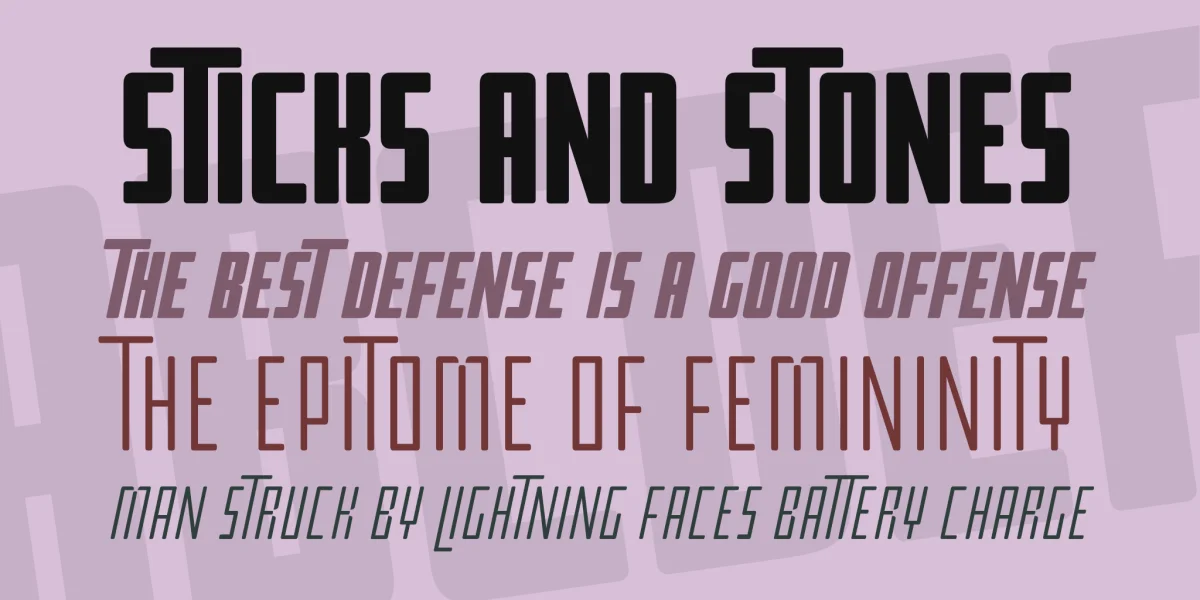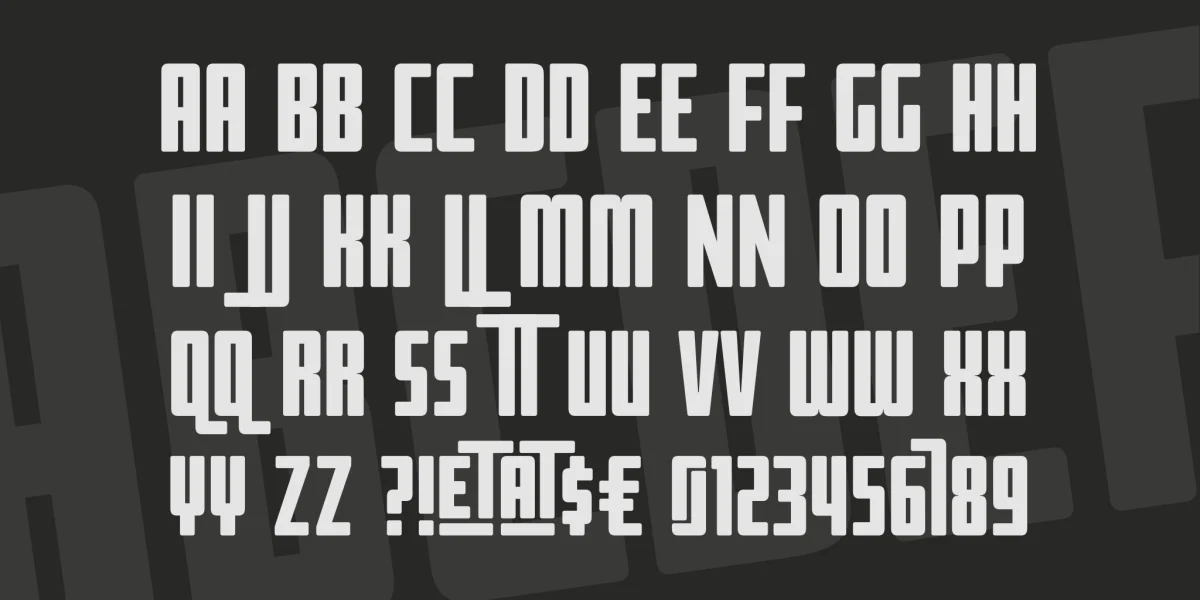
backpacker.gr celebrates 4 years on the road with the release of BPimperial; a caps-only condensed typeface in two weights (light and bold), each one accompanied by extreme 12 degrees italics. With several letters trying to impose on the rest, and a set of unexpected design choices in some of its puncuation marks, BPimperial is a display font that literally stands out! Give it a try (be careful though: you shouldn't mess with its spacing or kerning. It's designed to work as is)!